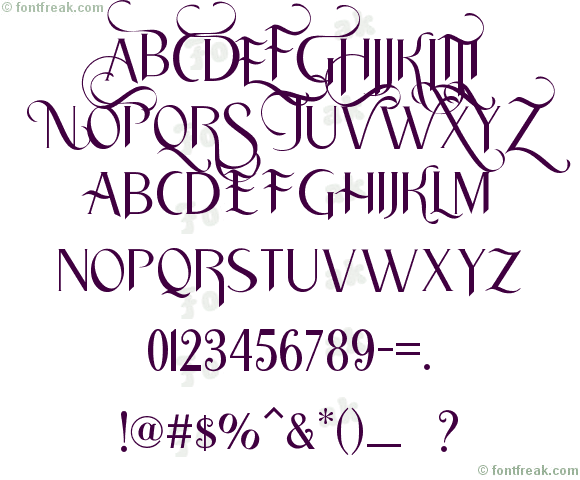
Traditian
About Traditian
Traditian is a stunning display font designed by Burhan Afif, released in 2020. This typeface falls into the serif category, characterized by its elegant and sophisticated strokes. The font features a moderate stroke weight that creates a balanced contrast, making it visually appealing without sacrificing legibility. The unique decorative elements, such as the graceful serifs and flowing lines, lend an artistic touch, perfect for various creative projects. The spacing is well-considered, enhancing readability while maintaining the font's stylish aesthetic.
Traditian is ideal for a range of use cases, including wedding invitations where its elegance can set the tone for a romantic occasion. It can also elevate movie posters, adding a touch of sophistication that draws attention. For small businesses, using Traditian on restaurant menus can create a memorable dining experience, as it imbues the brand with a sense of style and class. Additionally, content creators can leverage this font for social media graphics, ensuring their posts stand out in a crowded feed.
The target audience for the Traditian font includes graphic designers seeking to enhance their projects with a unique typeface, small business owners looking to establish a distinctive brand identity, and content creators who want to make a lasting impression.
What sets Traditian apart is its harmonious blend of elegance and readability, making it a versatile choice for any creative endeavor. The font's graceful lines and decorative serifs not only capture attention but also convey a sense of artistry and sophistication. For those interested in incorporating this remarkable typeface into their work, the Traditian font free download offers an accessible opportunity to elevate any design project.